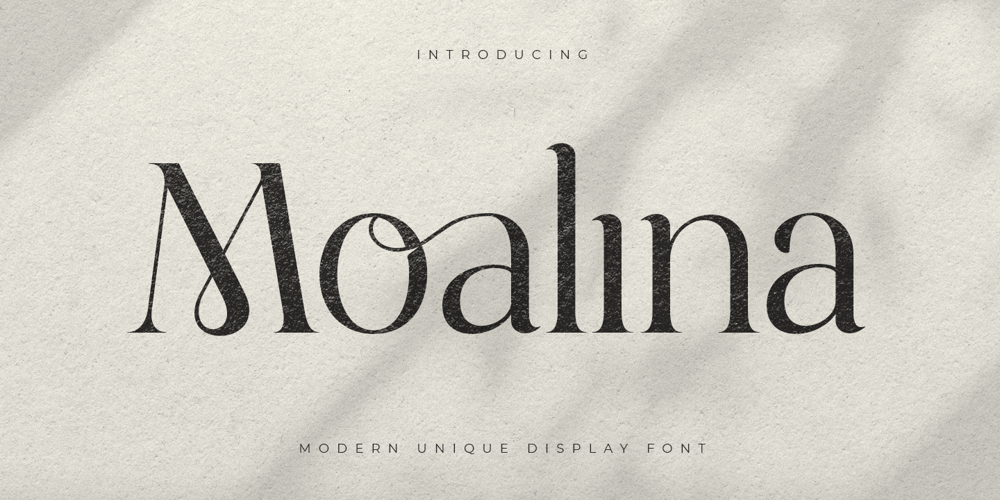
Moalina
Moalina font
Moalina Font Family was designed by Zamroni Hamzah and published by Sensatype Studio. Moalina contains 1 styles and family package options. A Display font that we created special for Modern branding needs, with extra ligatures in unique shape will be ready to add value of your brand. It so nice to leverage designer or product owner that need solutions to make their design look more elegant and luxury. And specially for Moalina font, We prepared any ligatures characters to help you create unlimited variations for your creative needs.Amiora Display font ready with: Any options to get creative variations (combination of Ligatures) Preview as a inspirations that you can do with Moalina font Ready with Lowercase and Uppercase characters Wish you enjoy our font. 🙂